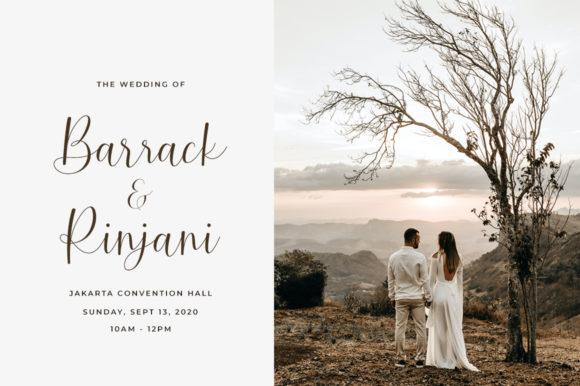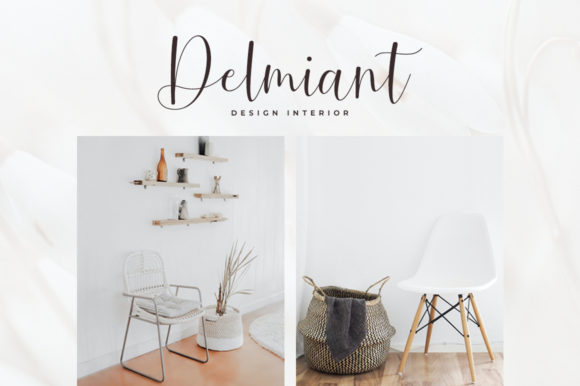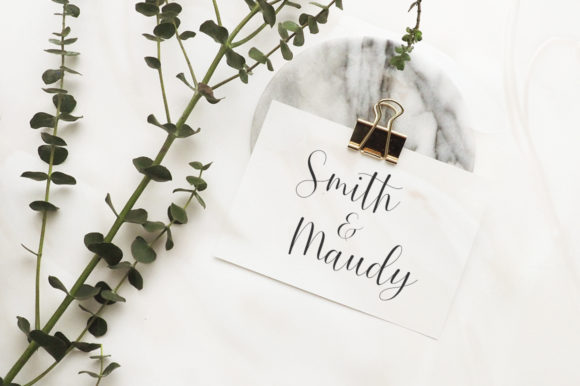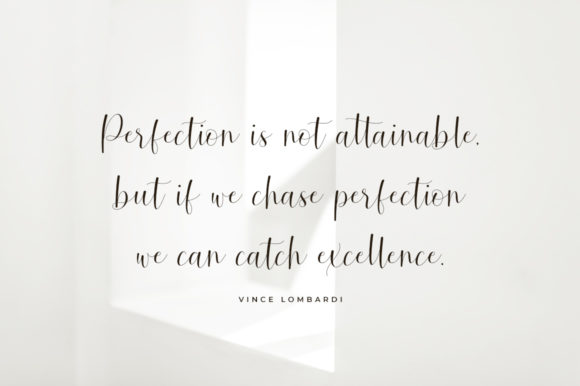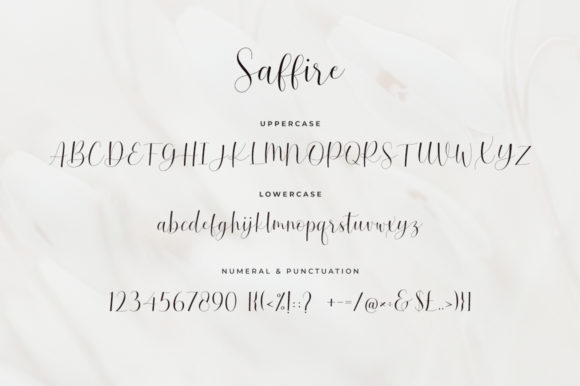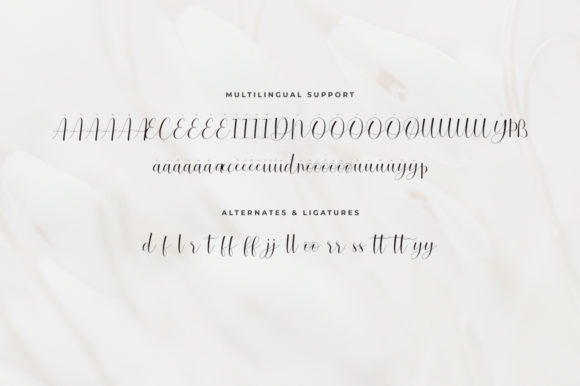
Introduction to Saffire Font
Saffire is a flowing handwritten font, described by an elegant touch, perfect for your favorite projects.
Fall in love with its incredibly distinct and timeless style and use it to create spectacular designs This font is PUA encoded which means you can access all of the glyphs and swashes with ease.